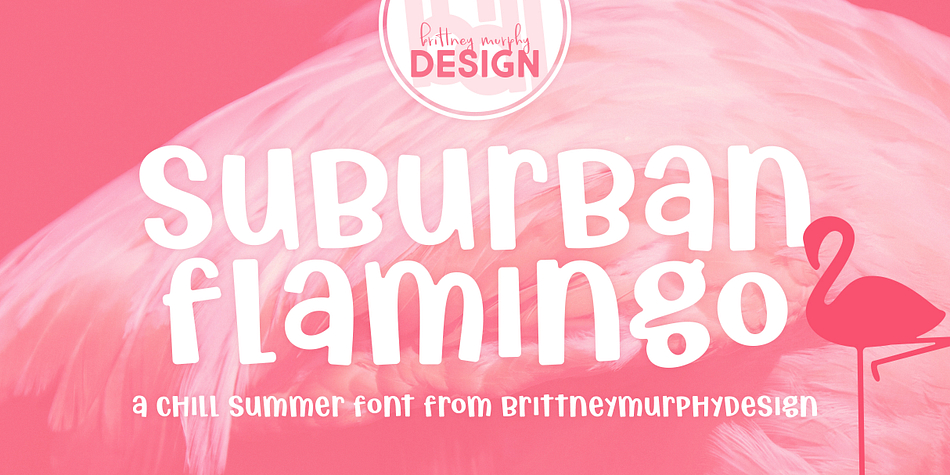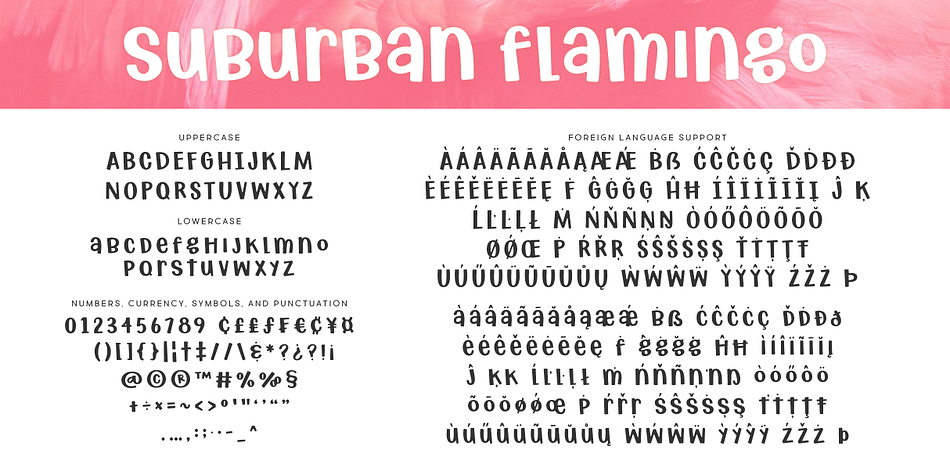
Suburban Flamingo
Designed by Brittney Murphy, Suburban Flamingo is a kids font family published by Brittney Murphy Design.
Suburban Flamingo is a quirky mixed-case font. It features soft corners and is mostly mono-height, making it perfect for tight lettering without a lot of awkward white space between lines of text.
The fun attention-getting letter shapes make it great for kids’ designs, apparel, or event posters.
It has over 300 characters and supports most Latin-based languages.